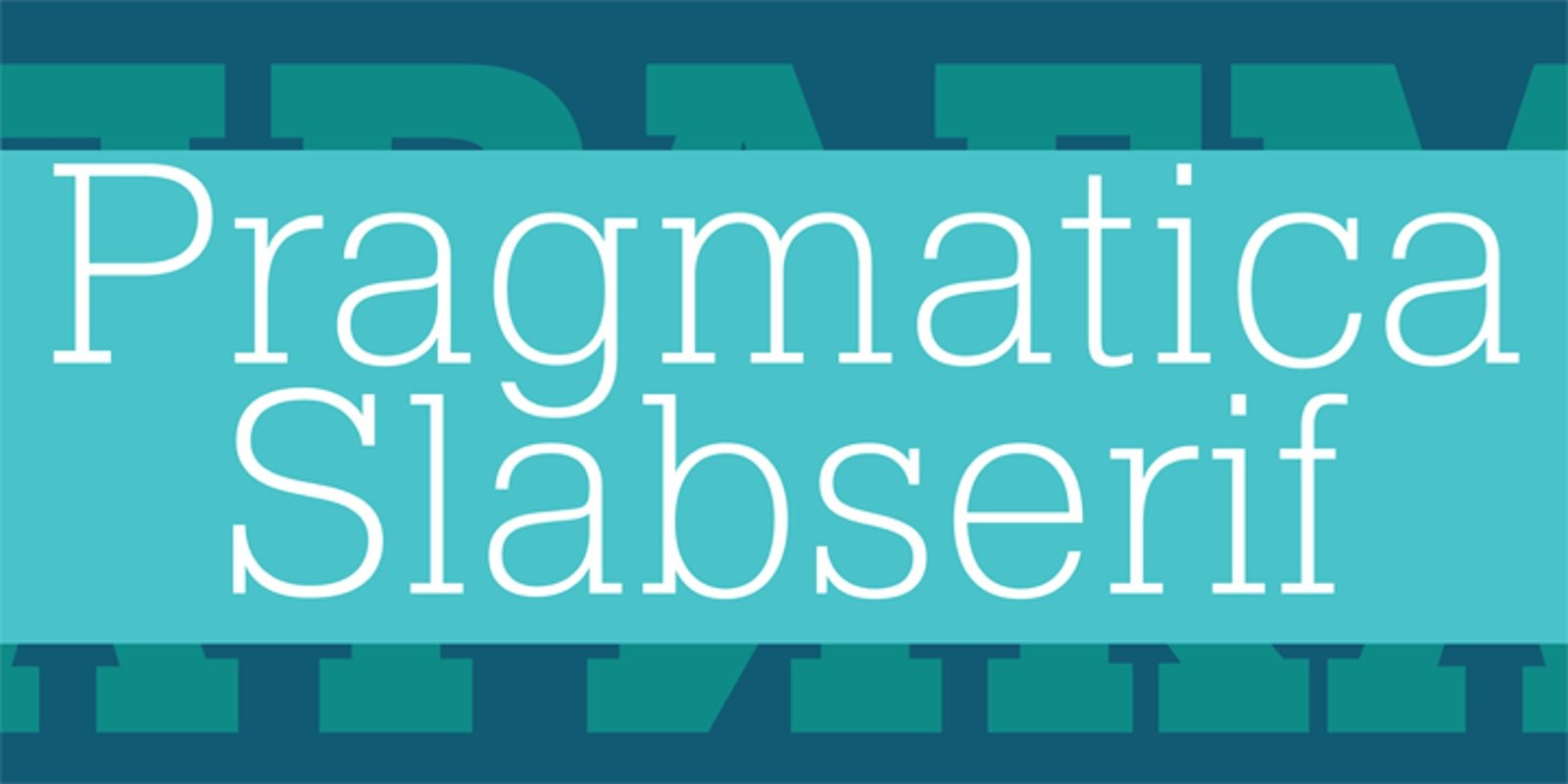
Pragmatica Slab Serif Font Family
Pragmatica Slab Serif Font Family is a distinctive and expressive font crafted to bring personality, structure, and creative energy into your projects. Pragmatica Slabserif was designed as a complement to the popular type family Pragmatica by Vladimir Yefimov and Isabella Chaeva (1989-2004) by addition of square serifs. Inspired by Helserif (Phil Martin, 1978) which was formed in the same way by addition of square serifs to Helvetica (Eduard Hoffman and Max Miedinger, 1957). First sketches of Pragmatica Slabserif were created by Vladimir Yefimov in 1988 during development of Pragmatica. Olga Umpeleva designed the whole slabserif type family of six weights basing on those sketches. All styles of Pragmatica Slabserif coordinate with corresponding Pragmatica styles on metrics, proportions, weights and design. The new family can be used together with Pragmatica and separately. It’s convenient for technical texts, for magazines of general nature, for business applications as well as for advertising and display matter. Pragmatica Slabserif was released by ParaType in 2011.
Designer: Vladimir Yefimov, Olga Umpeleva